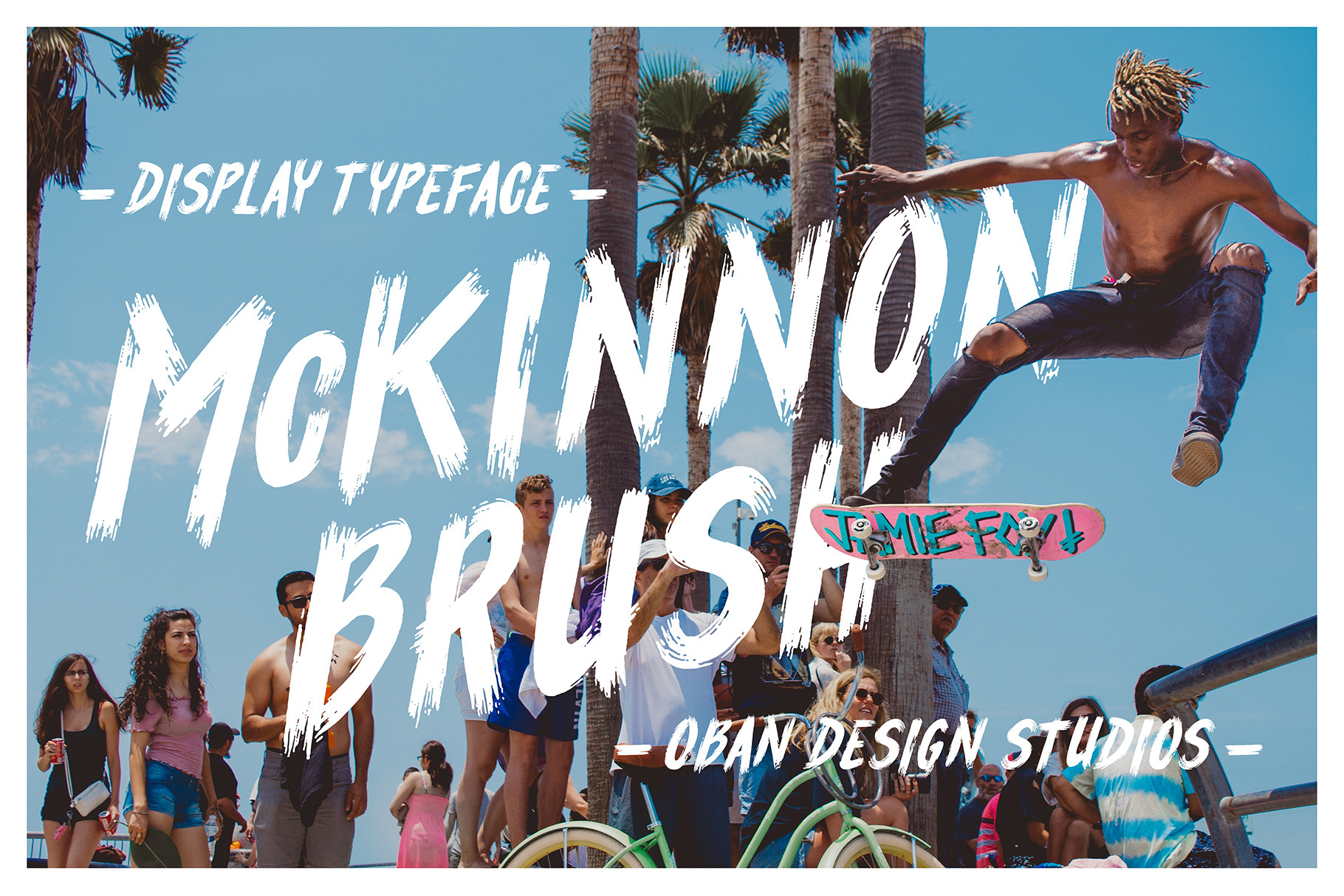
McKinnon Brush Typeface
McKinnon Brush Typeface is an energetic and carefree font from Oban Design Studios, created for vlogger & photographer Peter McKinnon.
Each letter is hand drawn, vectored and completely scalable for a spontanious yet easily legible brush stroke typeface. Designed for title use, but creates interesting effects when used for body copy.